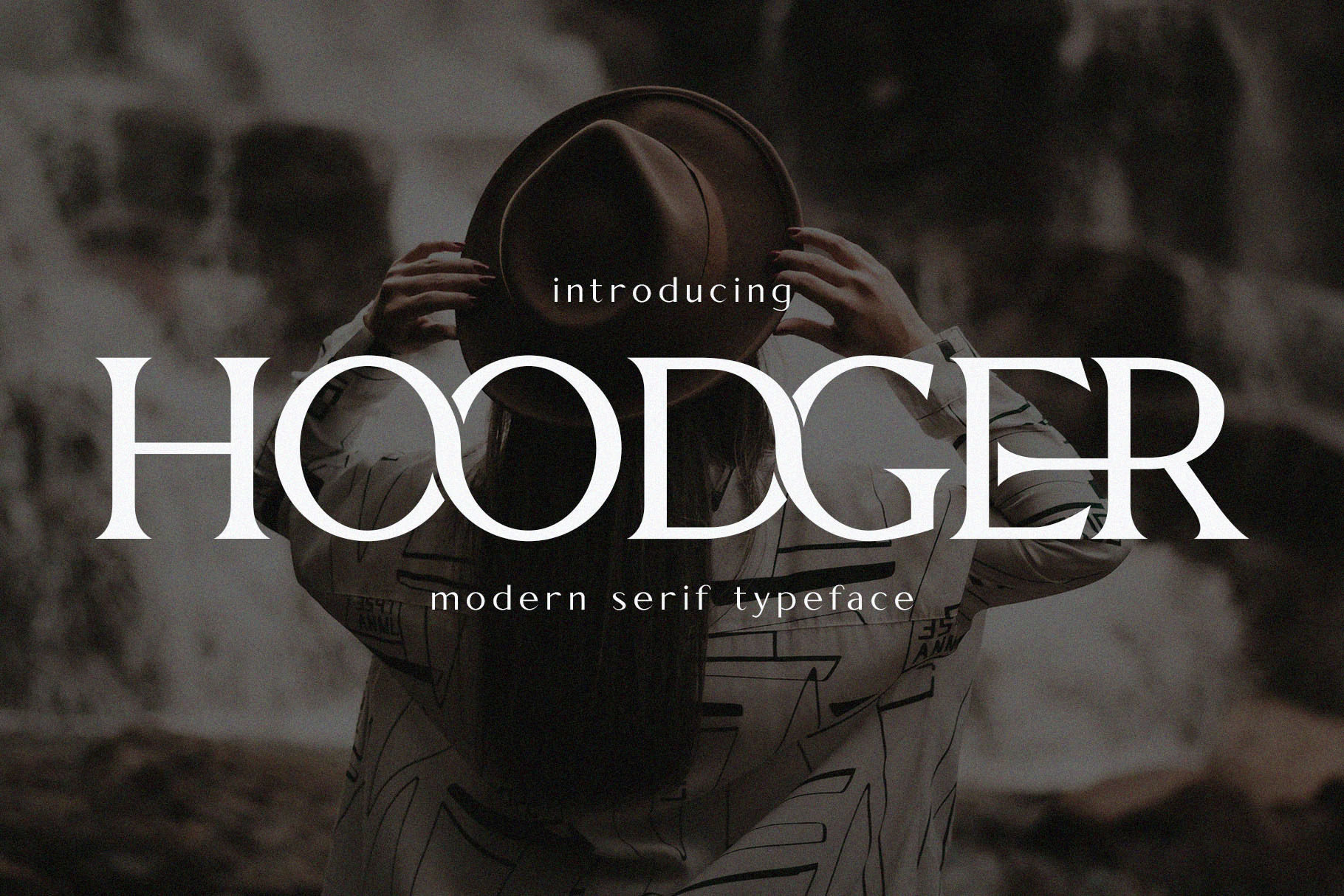
Hoodger Modern Serif Typeface
Introducing 'Hoodger' Font:
Introducing Hoodger, a neat, modern, and elegant serif font crafted to enhance any design endeavor. Whether you're working on posters, banners, logos, invitations, magazine covers, quotes, headings, printed products, social media posts, or more, Hoodger adds a touch of sophistication to bring your creations to life. Elevate your design projects with the timeless charm and contemporary allure of Hoodger.
Ideal for:
- Beauty and Fashion
- Advertising Campaigns
- Elegant Creations
- Social Media Designs
- Magazines
- Ready for Creative Expression
- Immaculately Crafted Letters